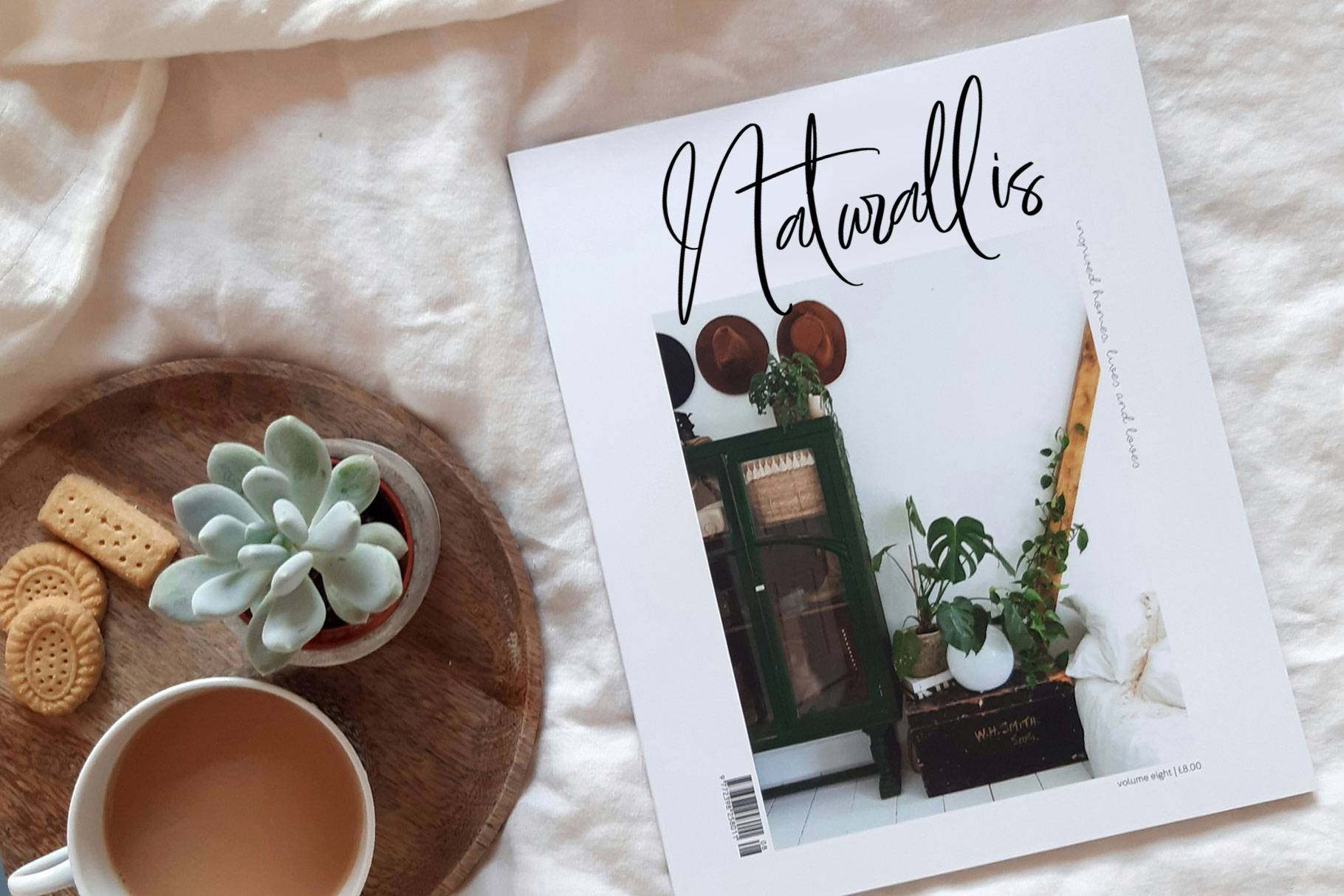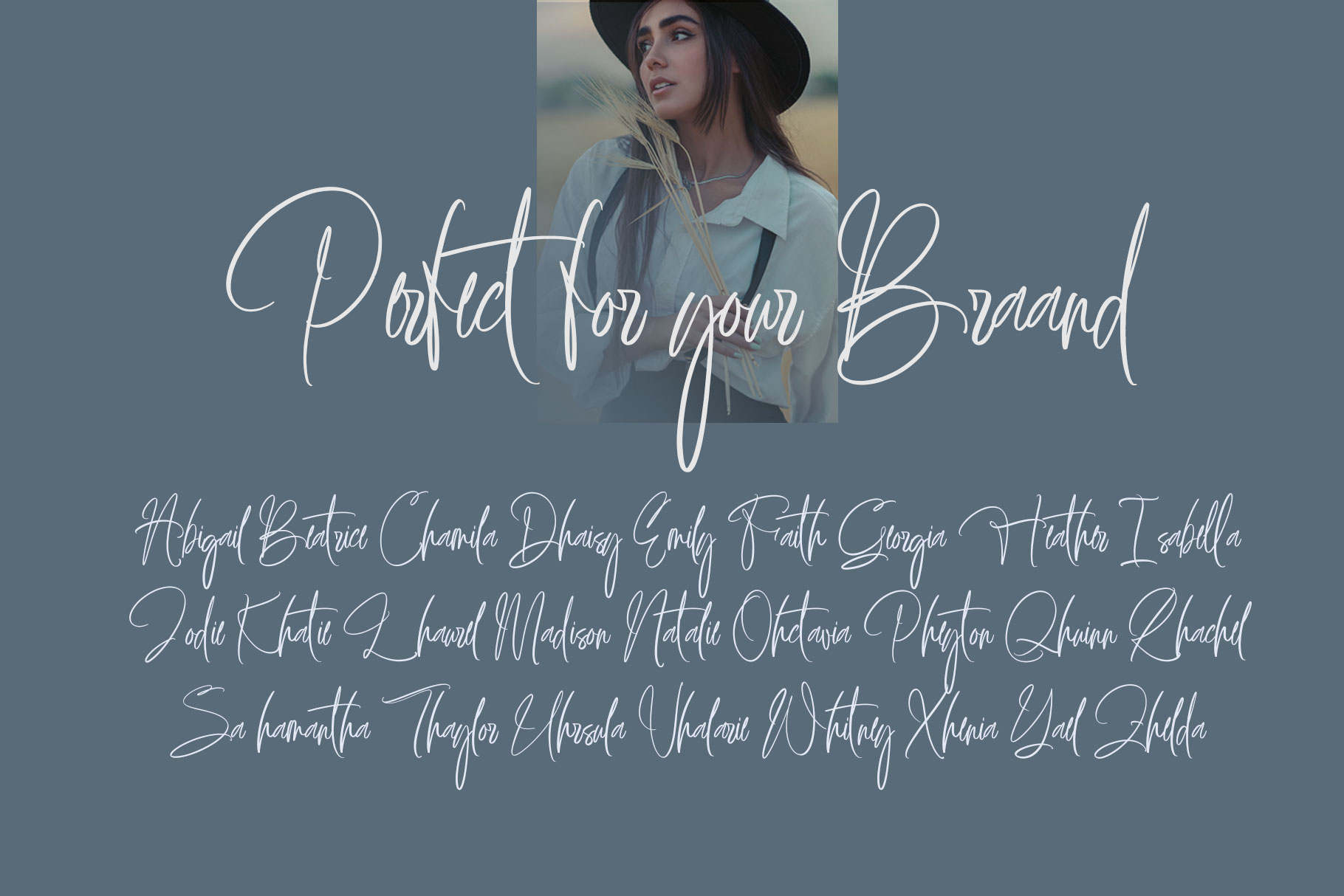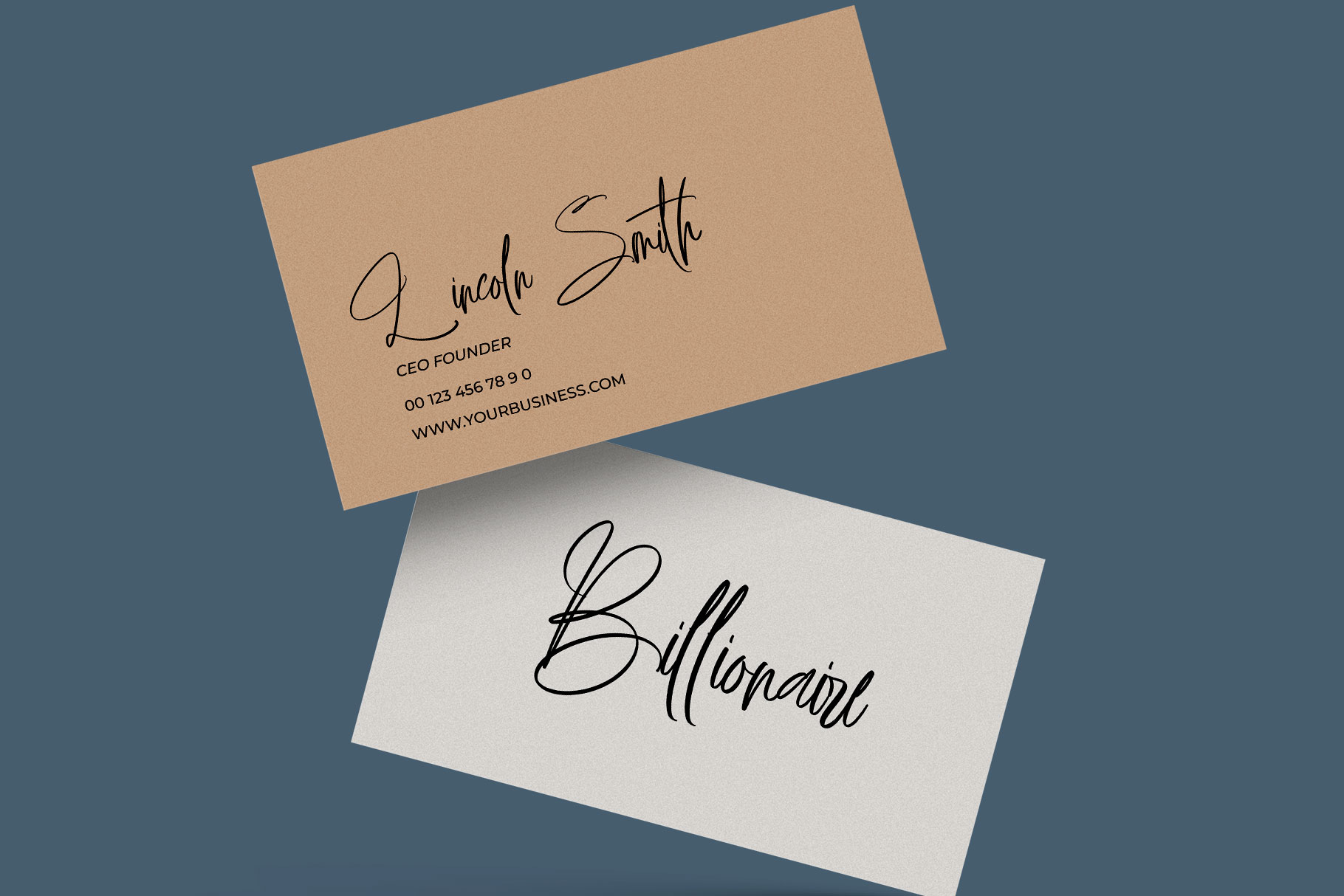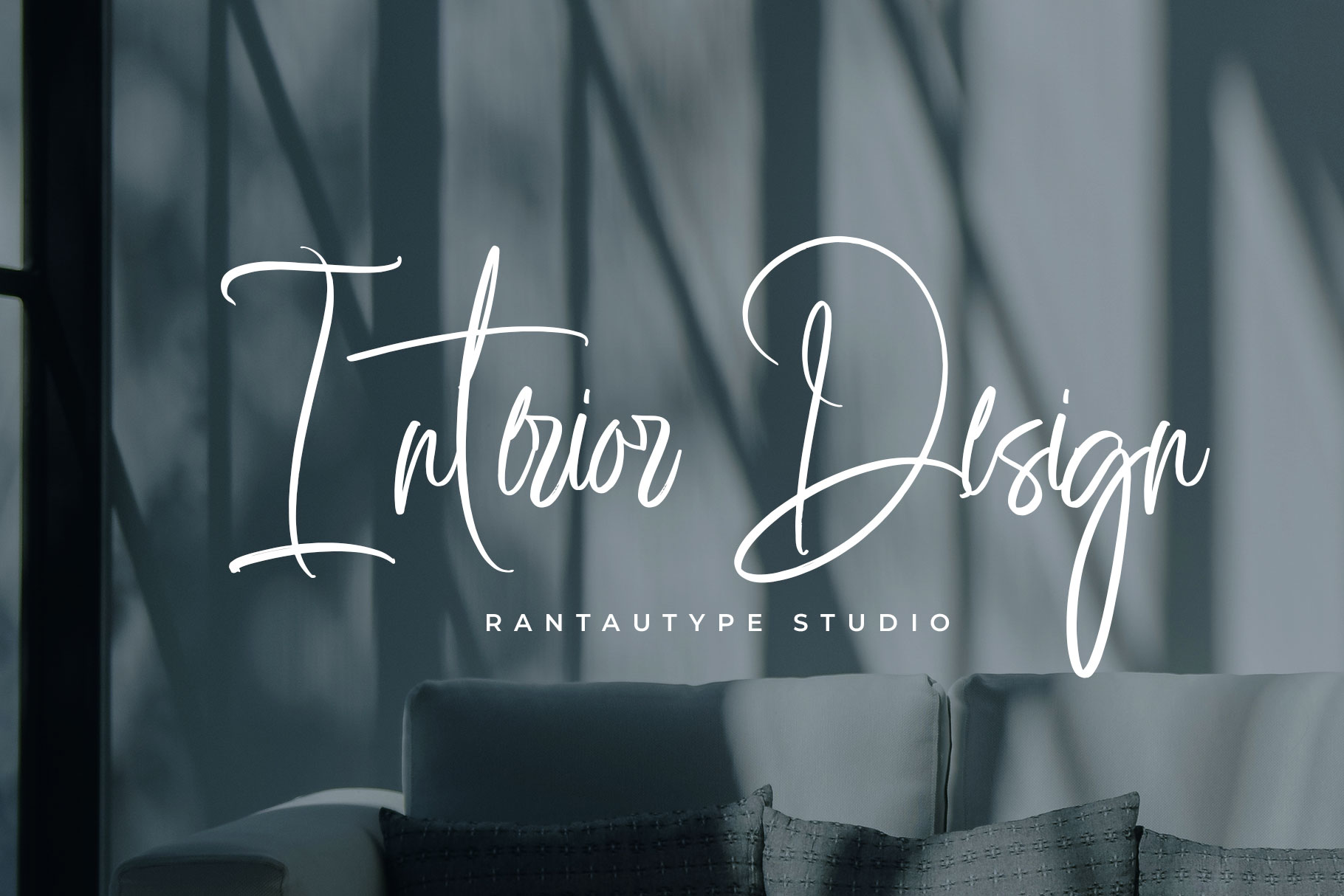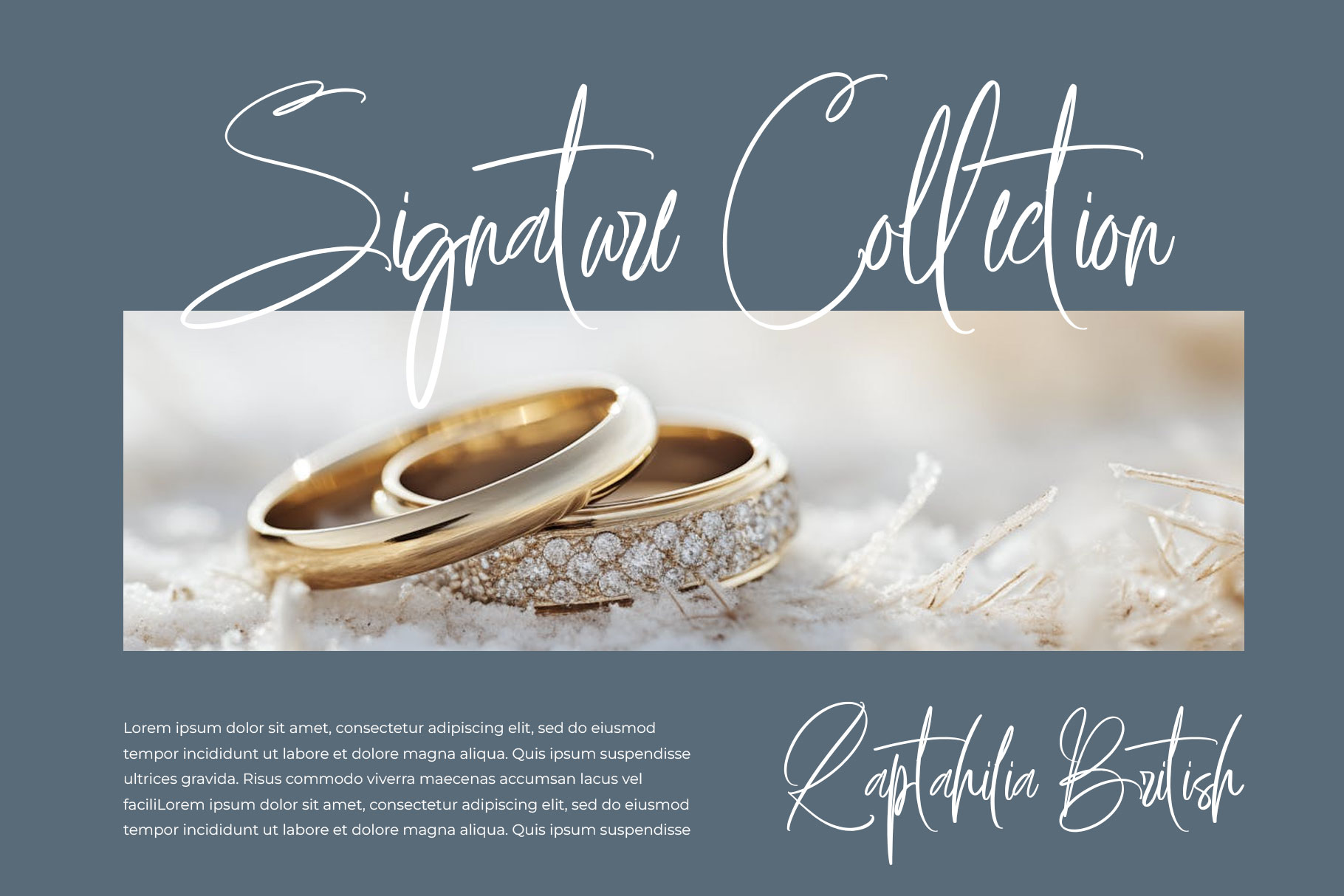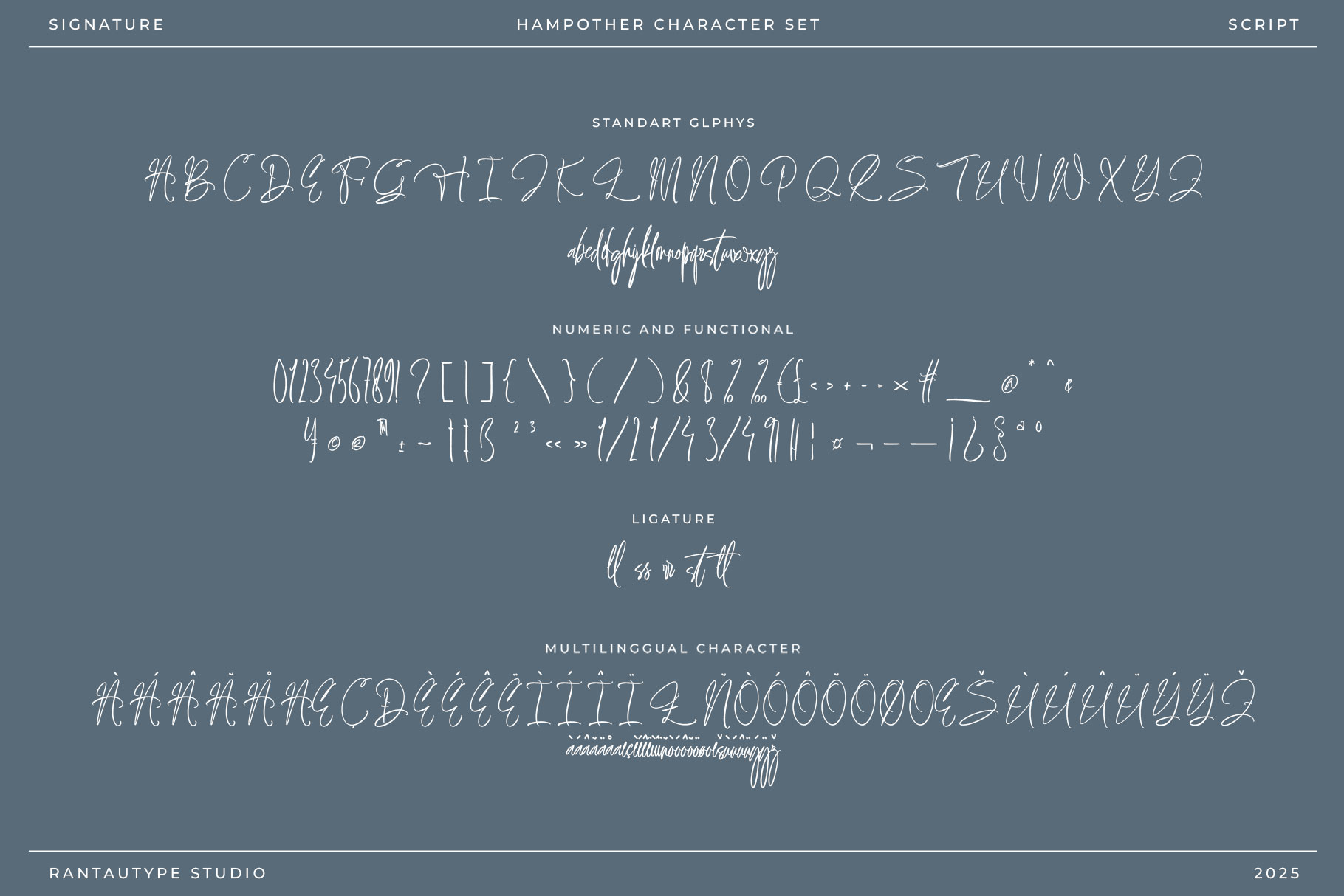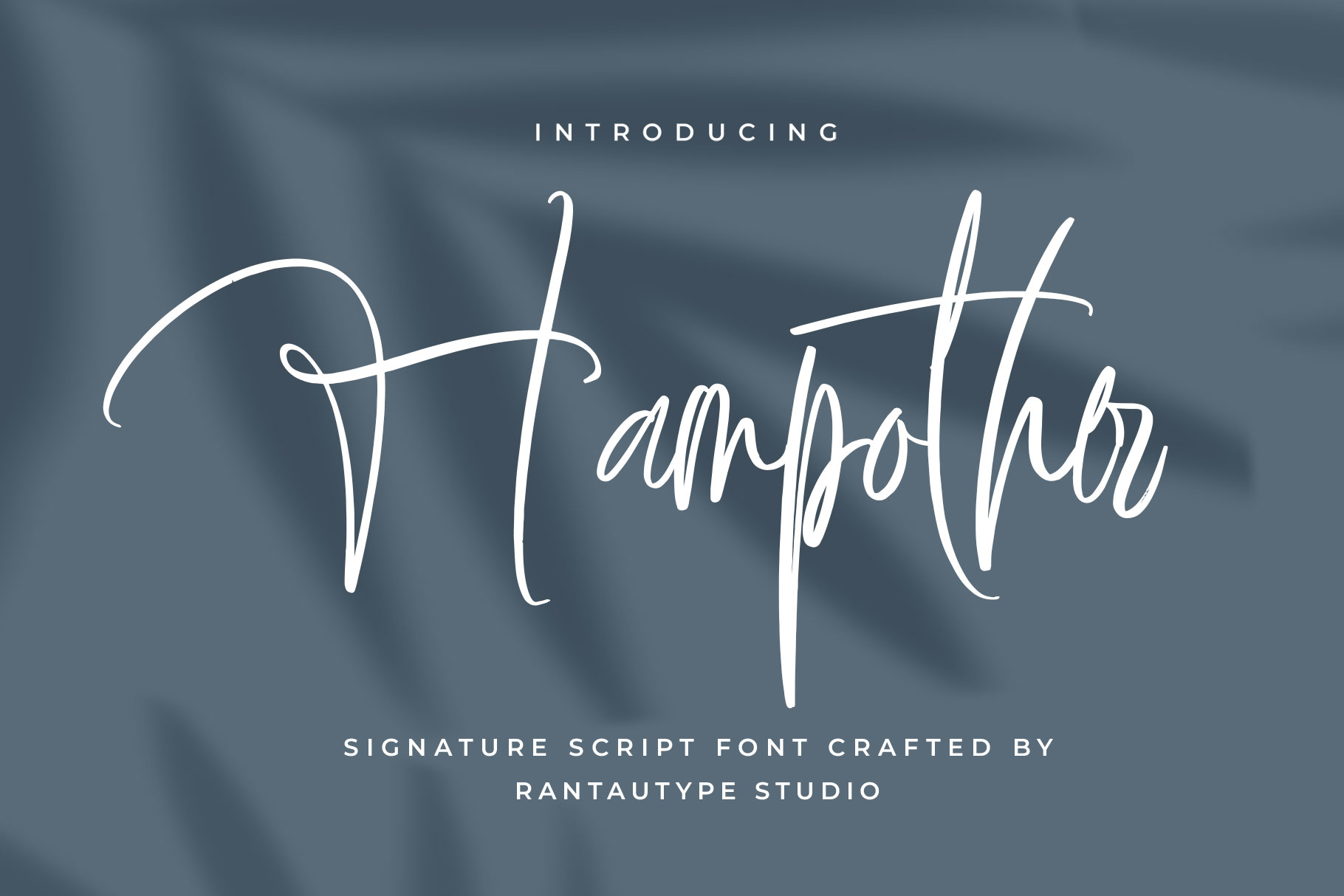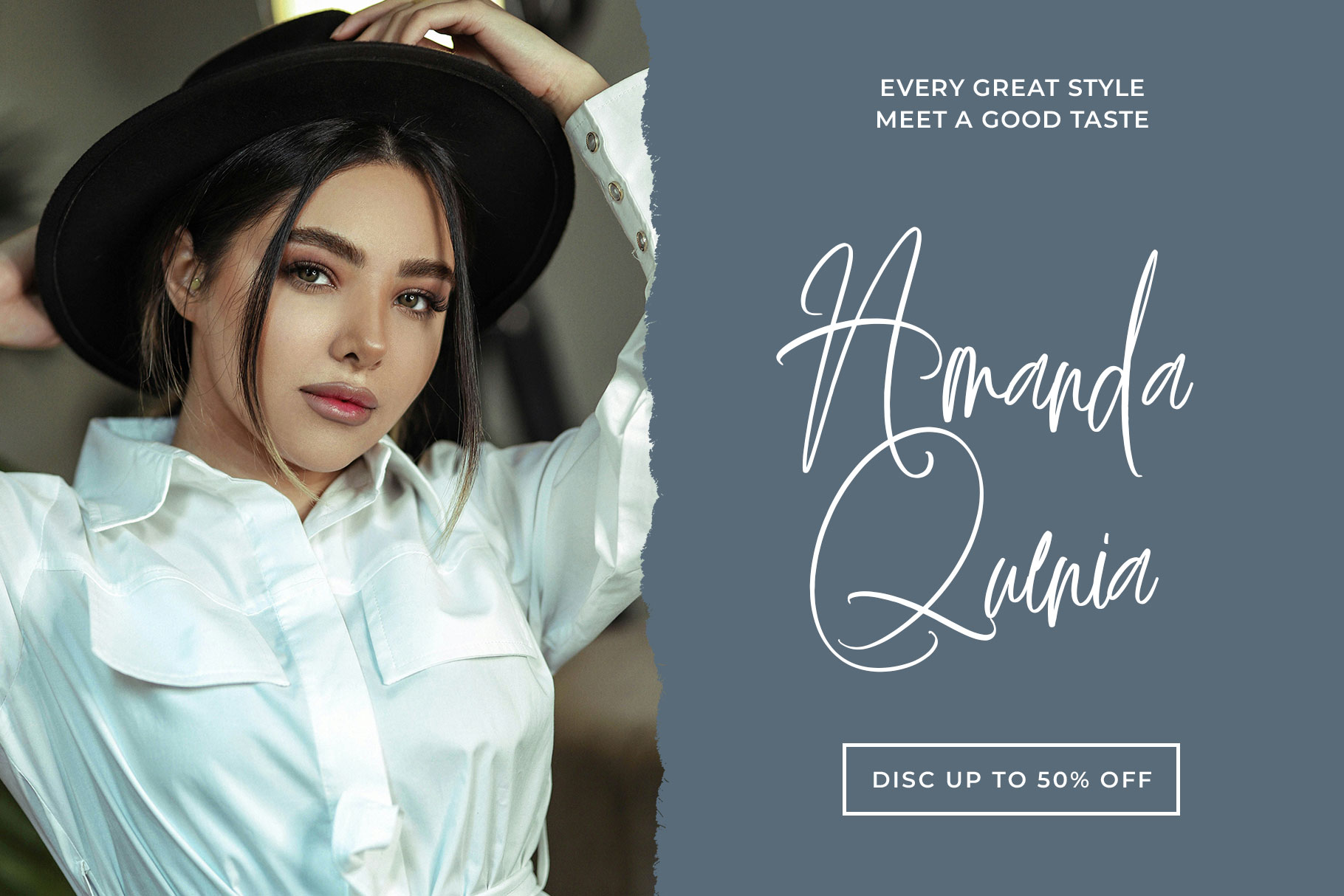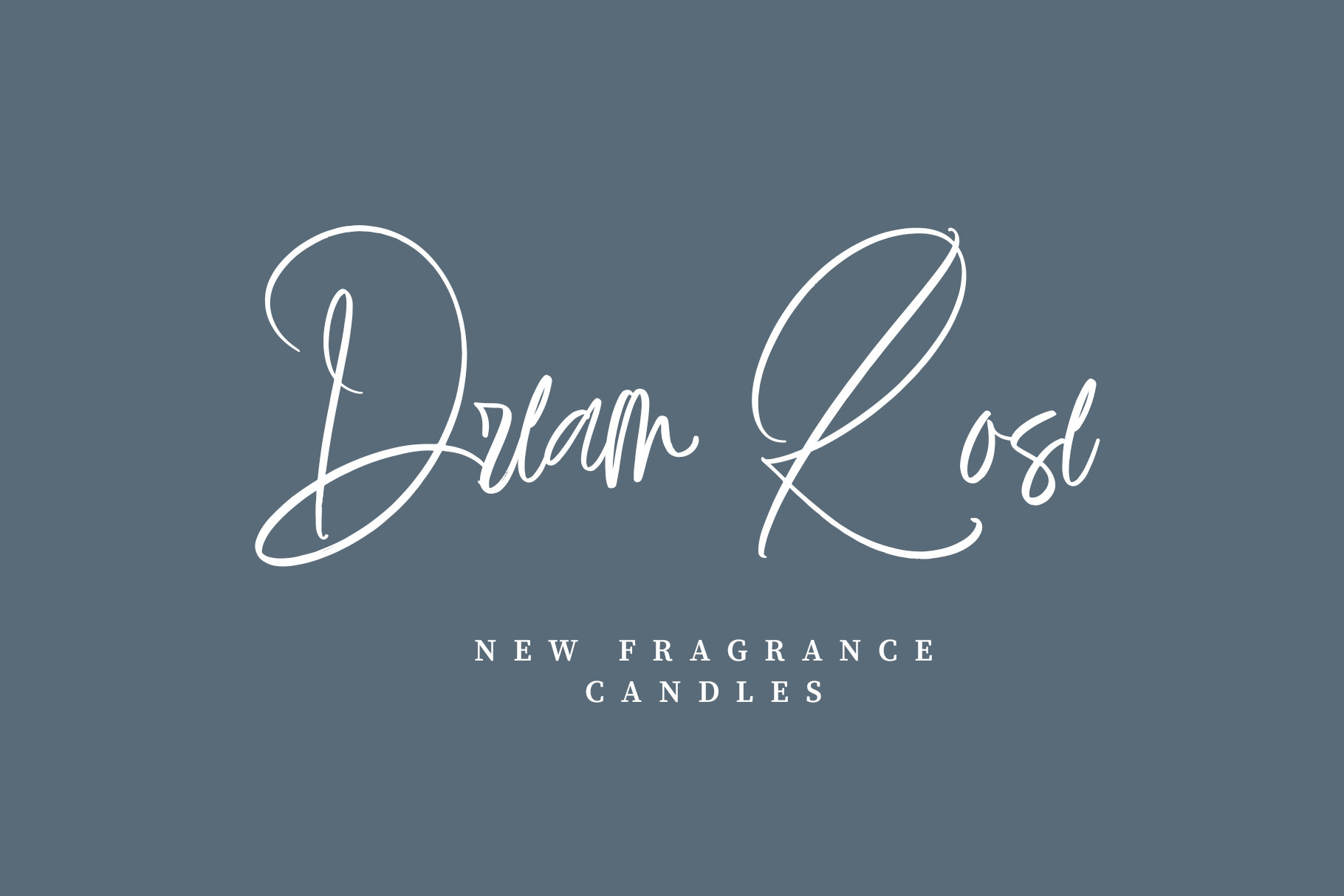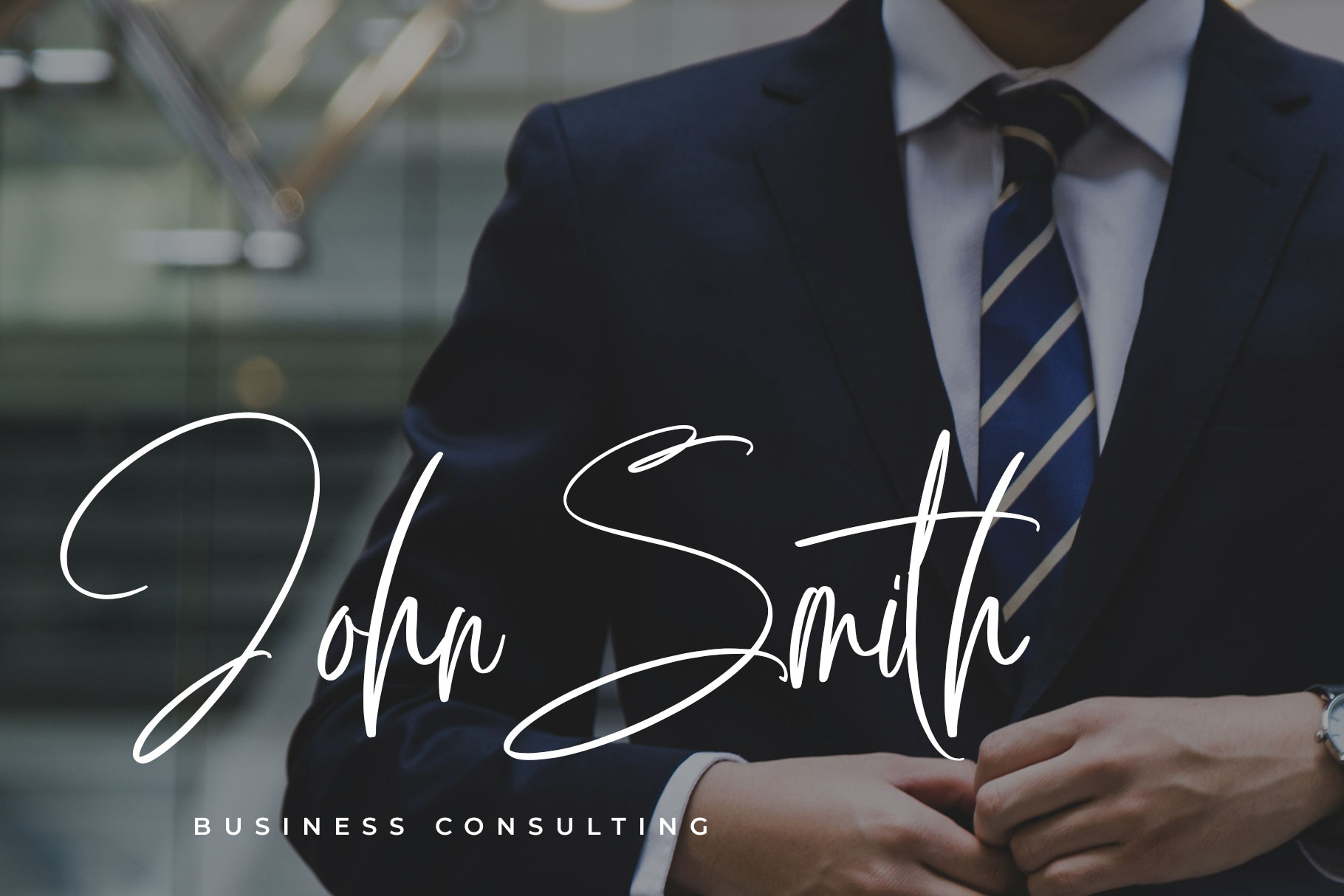
Hampother Signature Script Font
Hampother is signature font with style and trend. Hampother is a perfectly choice for any creative endeavor, creating, modern, lifestyle design such as logotype, title, cover, branding, invitations, wedding designs, display and magazine, social media posts, advertisements, printed quotes, product packaging, corporate brand, product designs, labels, photography, watermarks, special events and any other project with modern touch.